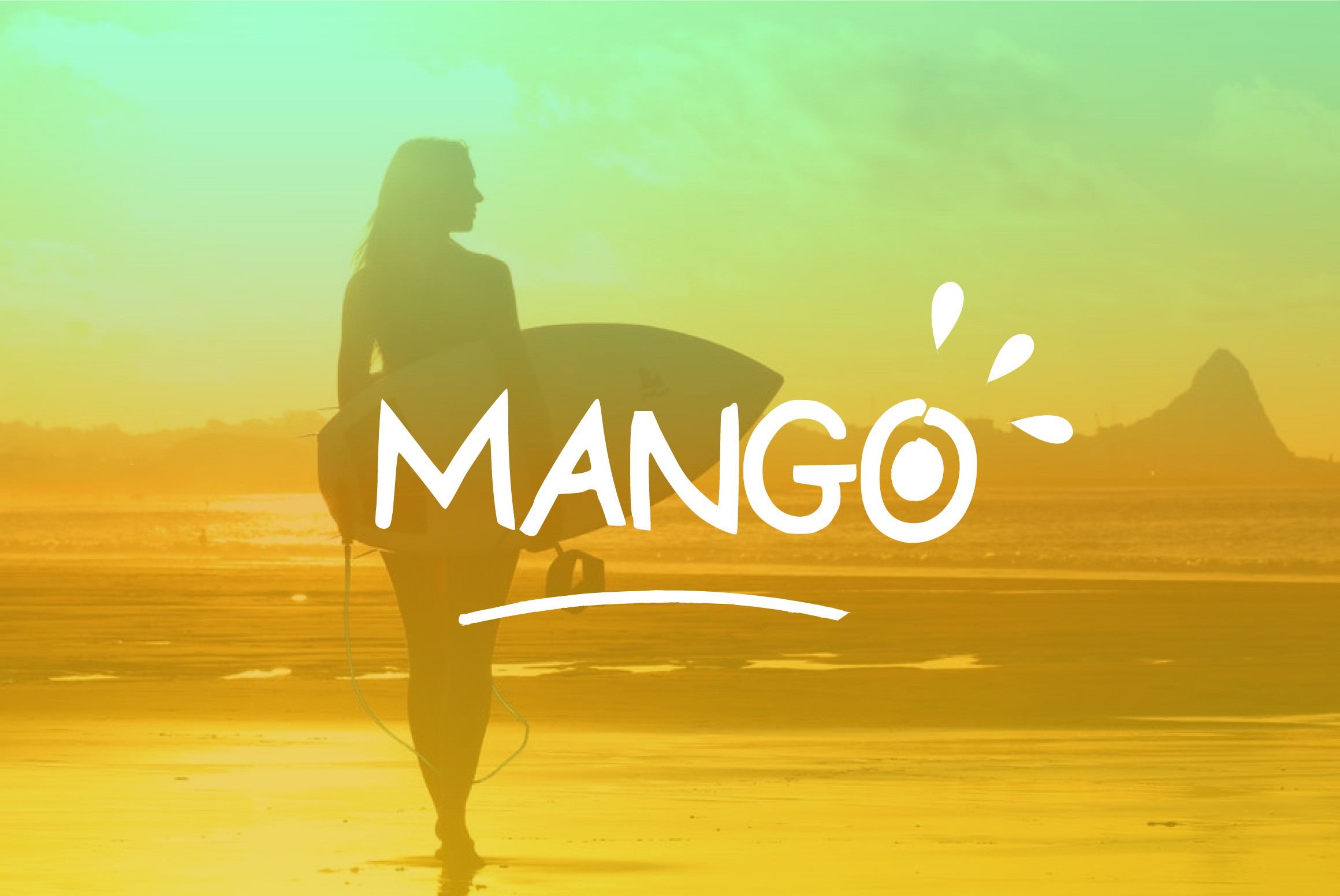
Mango Script Font
MoonStar Script Font Moonstar is scripted font perfect for something needing that personal hand lettered touch. Includes doubles "otf" / "ttf" as well as Uppers, Lowers, Numbers & Basic Punctuation, Language. For the dreamers and creators out there: "Never stop dreaming" From RedRiver Studio with Love